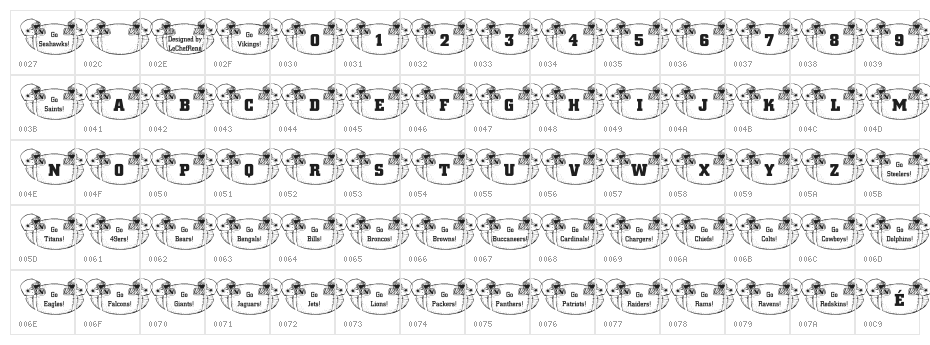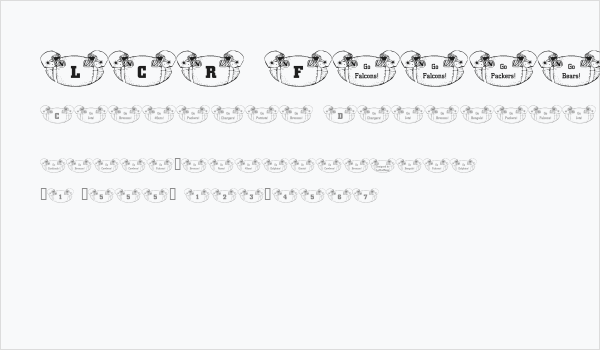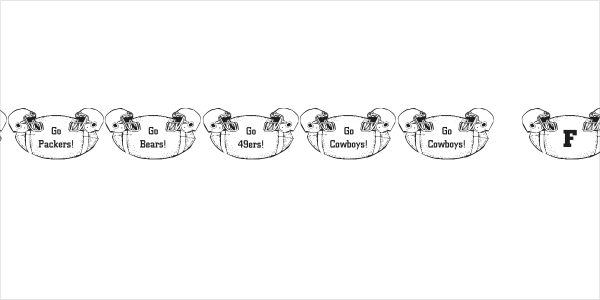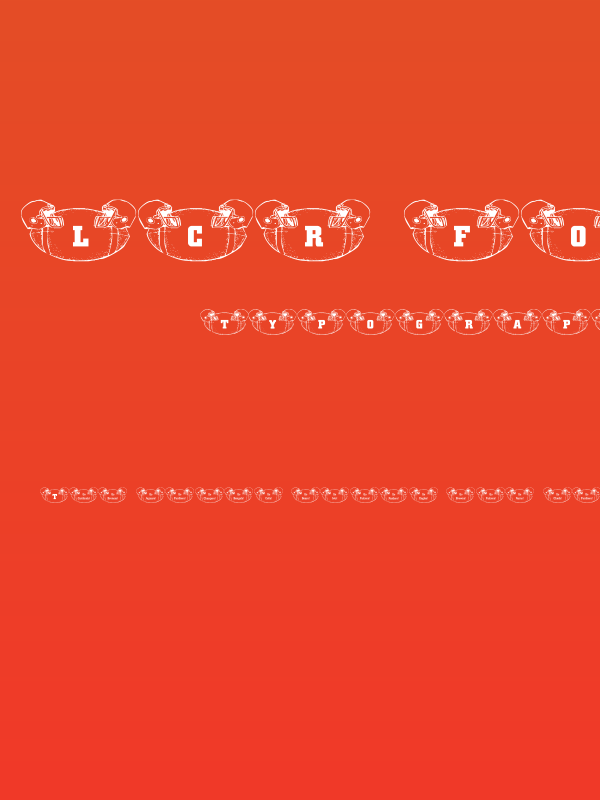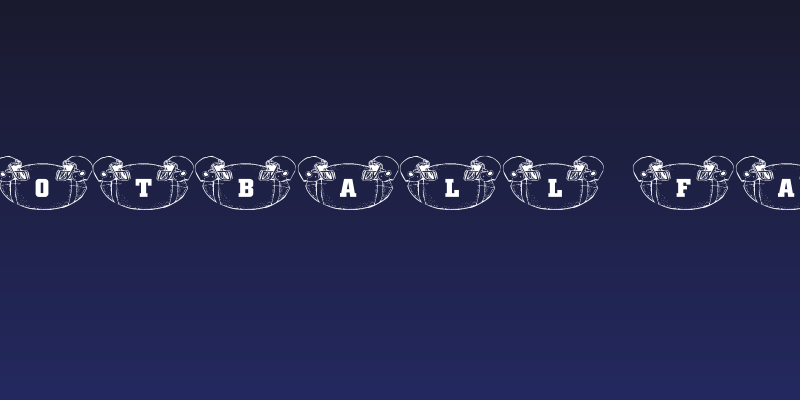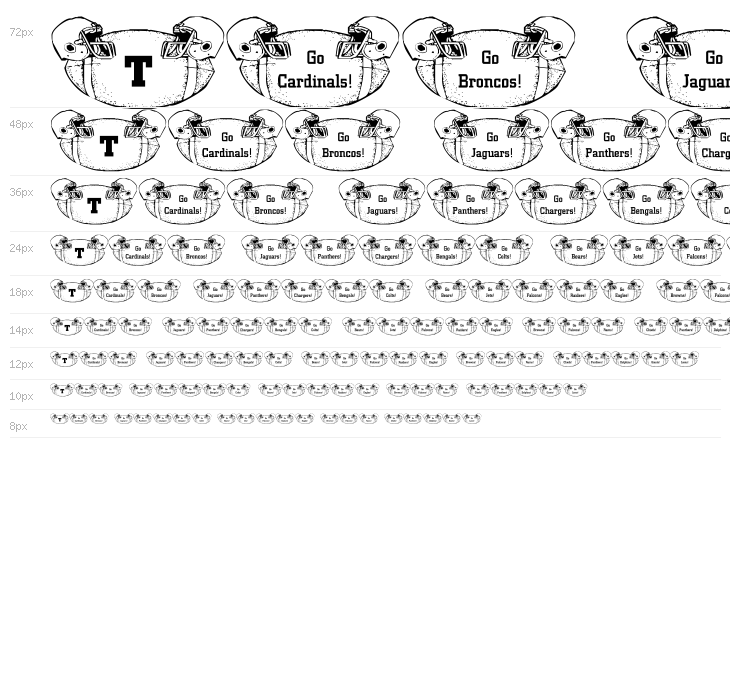
LCR Football Fanatic Font
LCR Football Fanatic Description
This font features a unique and playful design, incorporating elements of football helmets into each character. The uppercase and lowercase letters, as well as numbers, are all styled to resemble football helmets, complete with face masks and team logos. The font is highly decorative and themed, making it ideal for sports-related projects. The intricate details in each character add a dynamic and energetic feel, perfect for capturing the excitement of football. The font's design is consistent across all characters, maintaining a cohesive look that is both eye-catching and thematic.
| Use Case | Logos, Headlines, Themed Events |
| Proposed Projects | Ideal for sports event posters, team merchandise, fan apparel, and themed party invitations. |